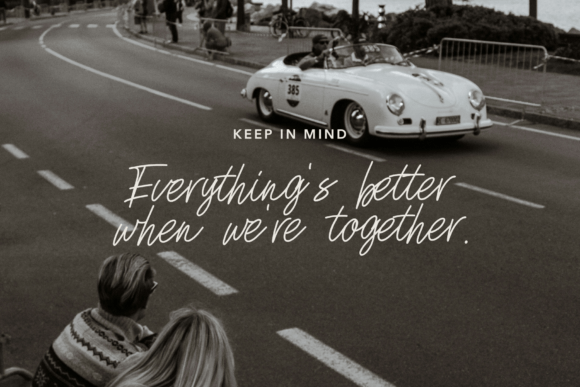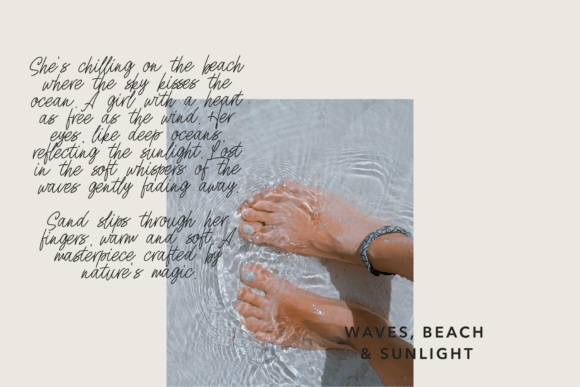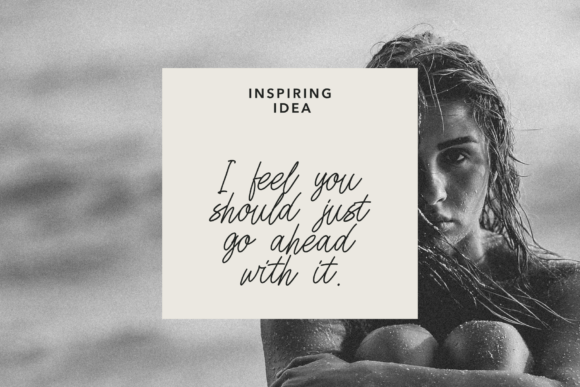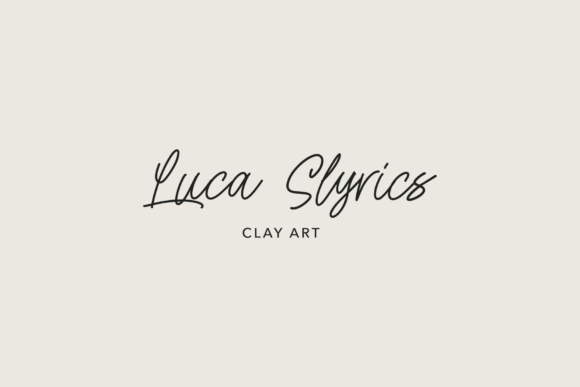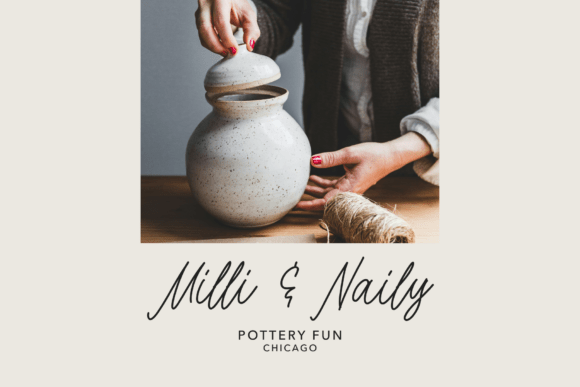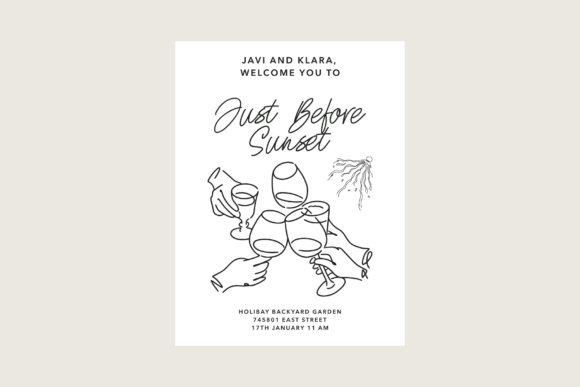
Bellinati Font: Elevate Your Designs with Elegance and Charm
In the world of typography, few fonts manage to convey the perfect blend of elegance, freedom, and charm. Bellinati, a graceful script font, is one such typeface that embodies these qualities in every curve. Handcrafted with a clean and authentic monoline style, Bellinati is the ideal choice for branding projects that demand personality and a natural handwritten touch.
The Essence of Bellinati
Bellinati is more than just a font; it’s an expression of sophistication and refinement. Its flowing strokes and modern yet romantic aesthetic make it a go-to font for designers seeking authenticity and emotional appeal. Whether you’re designing wedding invitations, social media quotes, packaging, logos, or lifestyle blog titles, Bellinati brings a soft, feminine feel that speaks of elegance without trying too hard.
Crafted with Care
Each letter in Bellinati has been carefully designed to maintain rhythm and harmony, ensuring that your designs exude a sense of balance and refinement. The font’s monoline style gives it a clean and authentic look, making it perfect for both digital and print applications. The attention to detail in Bellinati’s craftsmanship is evident in its flowing strokes, which add a touch of whimsy and charm to any design.
Bellinati is a versatile font that caters to the needs of designers and crafters alike. Its unique blend of elegance and charm makes it an excellent choice for a wide range of projects, including:
- Social media quotes and graphics
- Lifestyle blog titles and articles
Why Choose Bellinati?
So, what sets Bellinati apart from other fonts? Here are a few reasons why designers and crafters love this beautiful script font:
- Elegance and sophistication: Bellinati’s flowing strokes and monoline style give it a refined and elegant look that’s perfect for high-end designs.
- Authenticity and emotional appeal: The font’s handcrafted nature and natural handwritten touch make it relatable and engaging.
- Versatility: Bellinati is suitable for a wide range of projects, from digital designs to print applications.
- Easy to read: Despite its elegant and cursive nature, Bellinati remains easy to read, making it perfect for body text and headlines.
Tips for Using Bellinati
To get the most out of Bellinati, here are a few tips to keep in mind:
- Pair it with contrasting fonts: Combine Bellinati with bold or sans-serif fonts to create visual interest and hierarchy.
- Experiment with colors: Bellinati looks stunning in a range of colors, from soft pastels to rich jewel tones.
- Play with sizes: Use Bellinati in various sizes to create visual emphasis and add depth to your designs.
Bellinati is a beautiful script font that offers a unique blend of elegance, charm, and authenticity. Its handcrafted nature, clean monoline style, and flowing strokes make it perfect for designers and crafters seeking to add a touch of sophistication to their projects. Whether you’re working on a wedding invitation, social media graphic, or packaging design, Bellinati is sure to elevate your designs and leave a lasting impression.